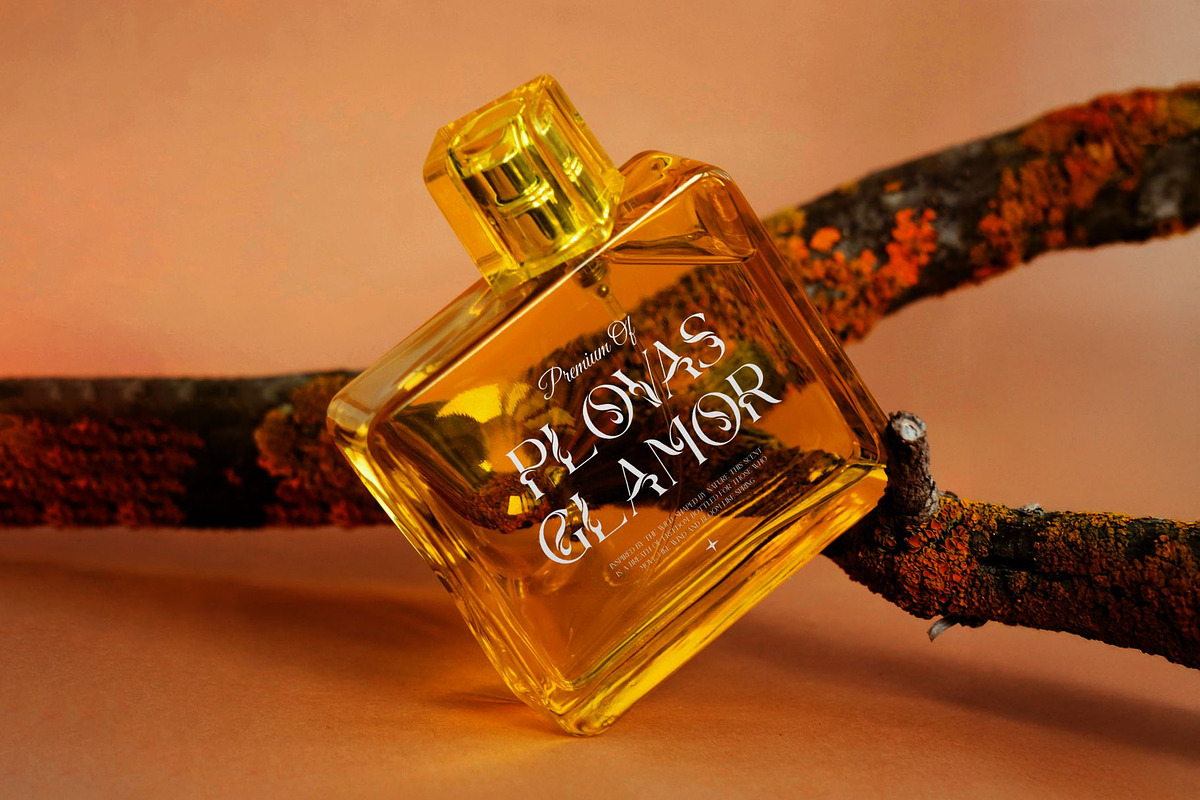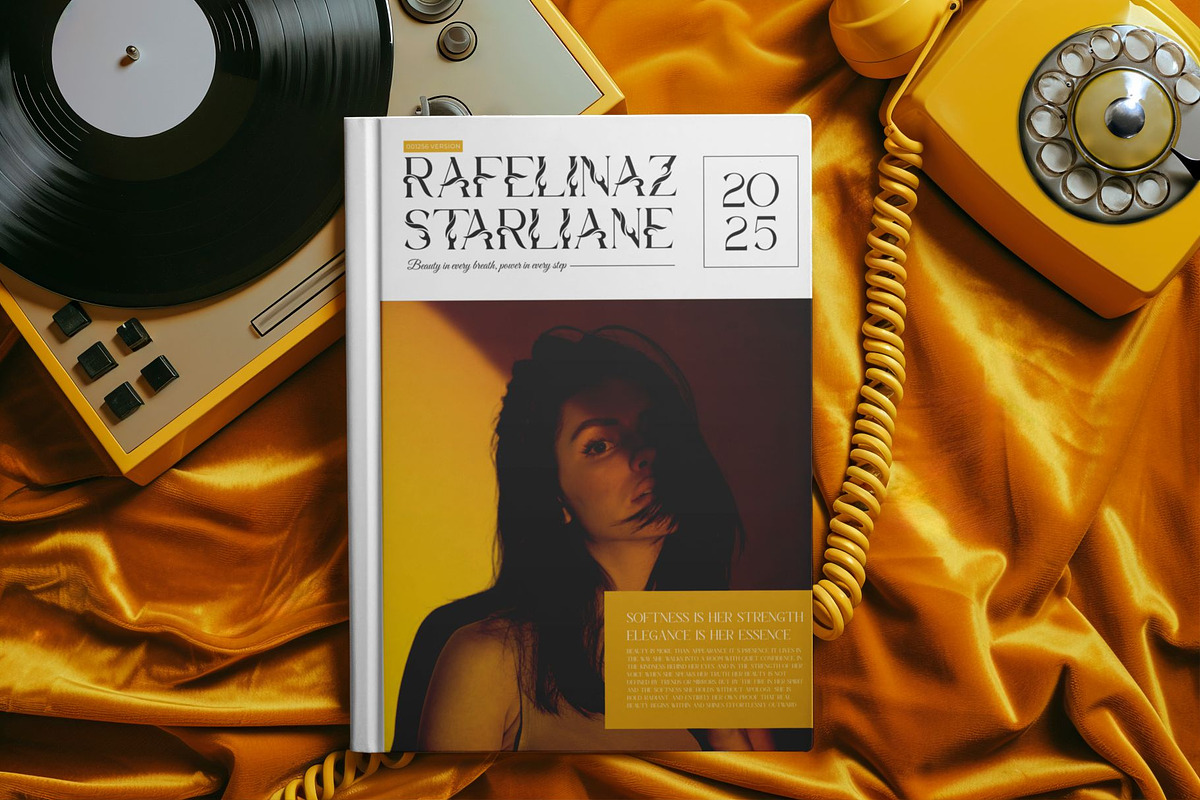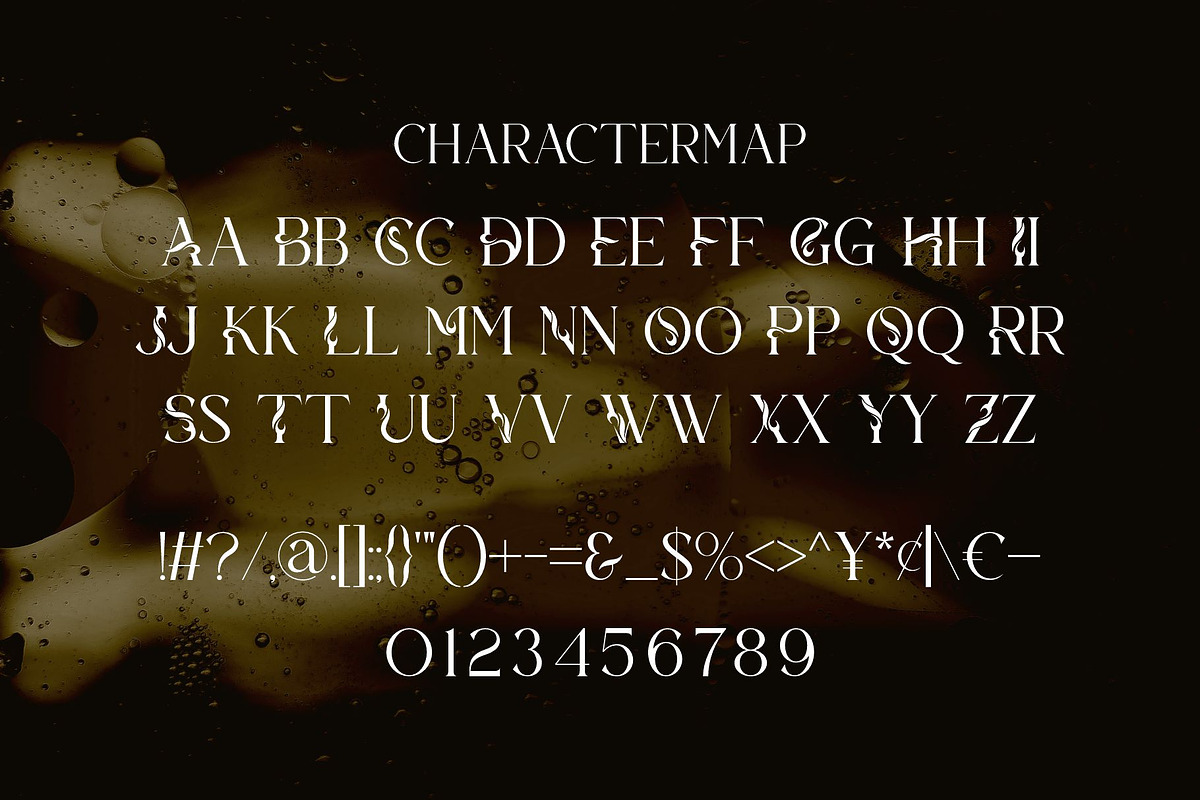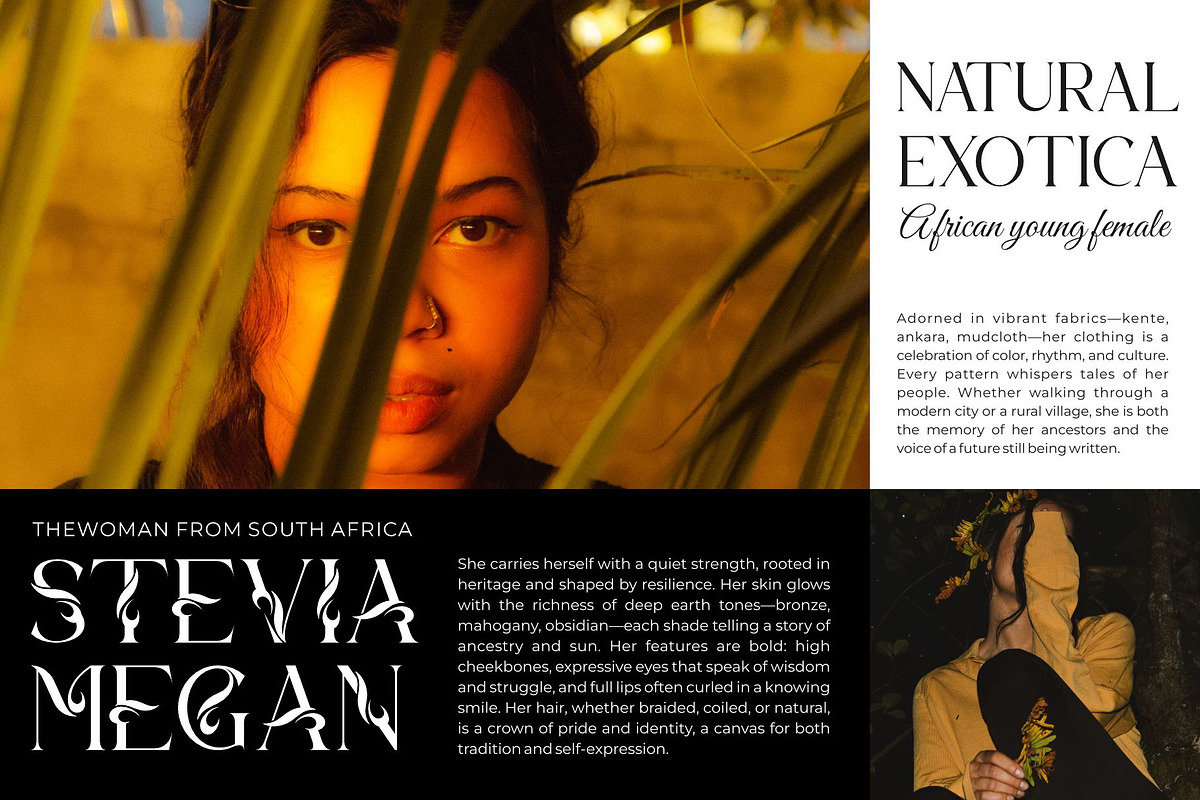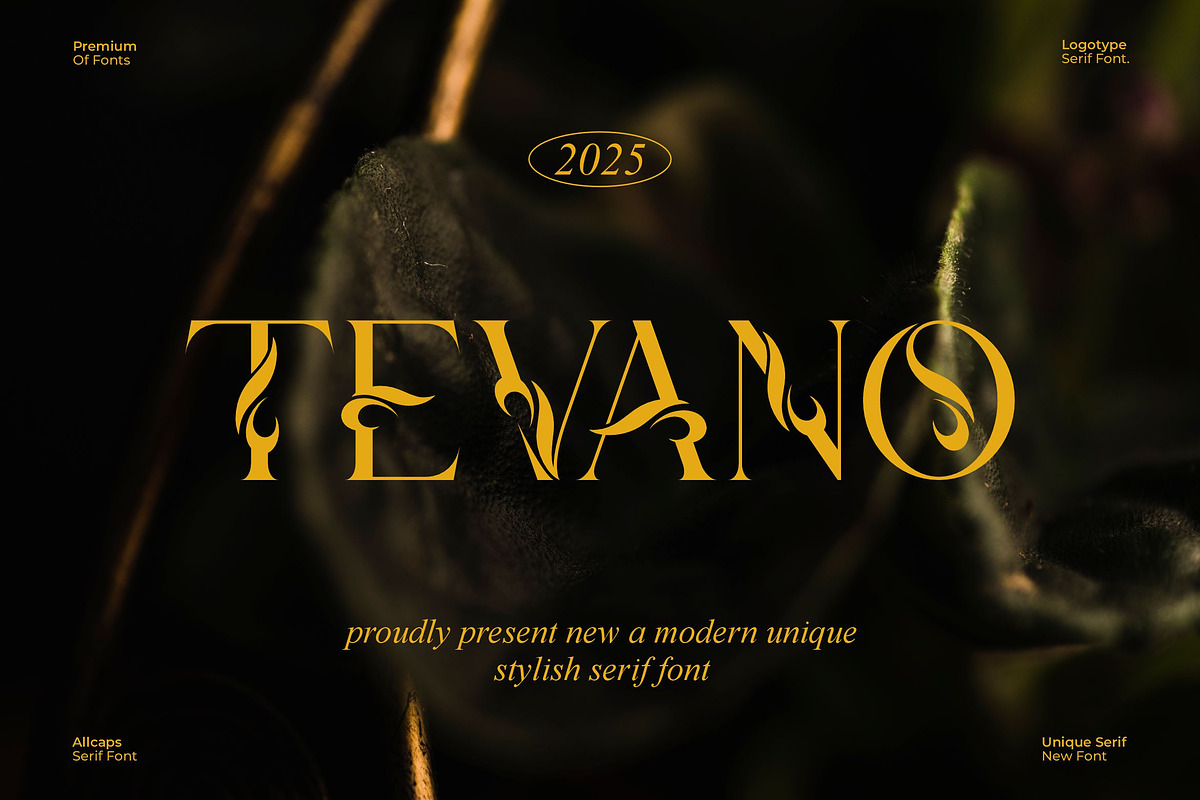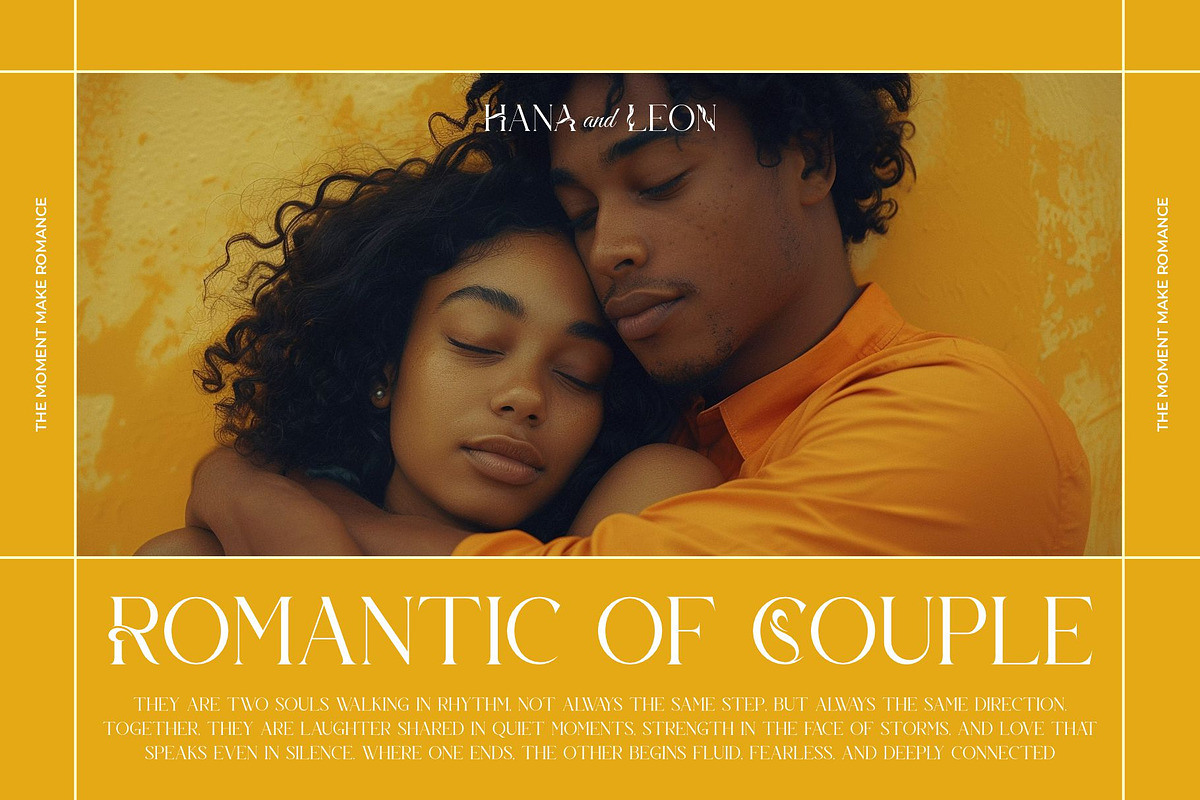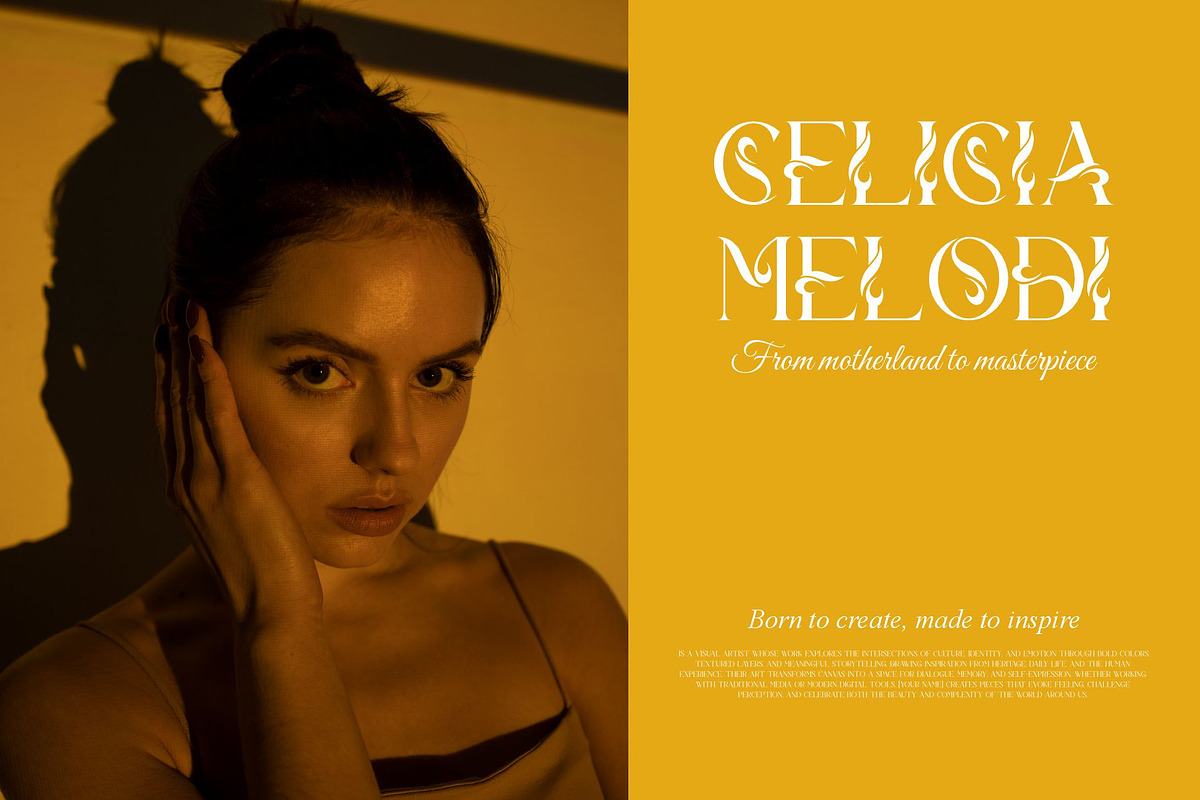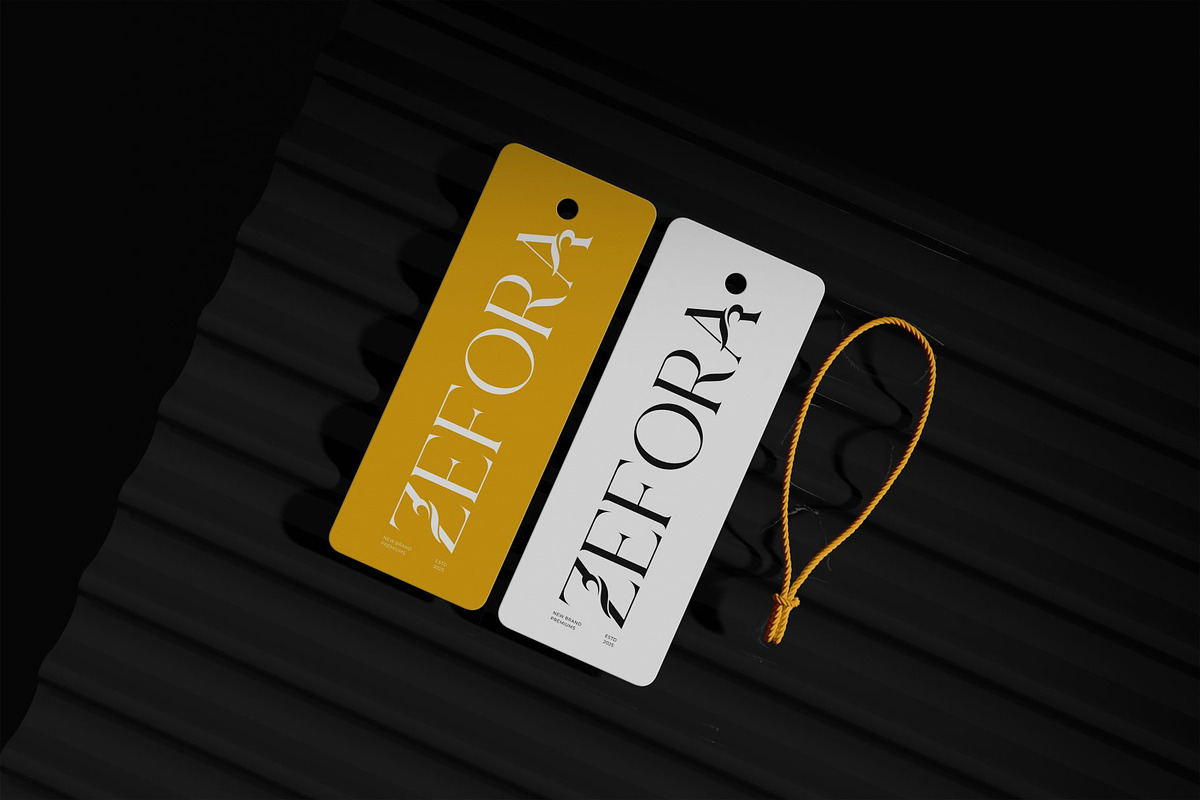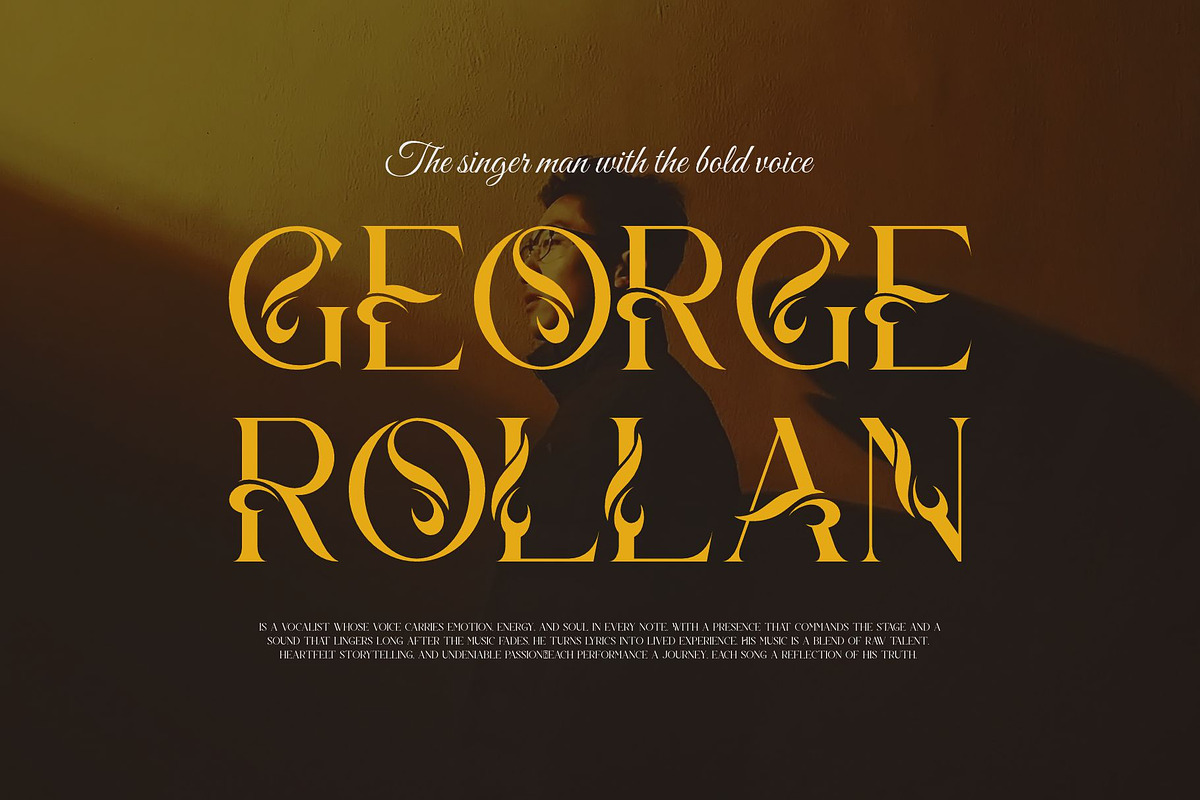
Tevano || Modern Unique Serif Font
Tevano Serif is a modern and unique font type for all branding and logo designs. This modern and unique Serif font has a beautiful character. This font is suitable for invitation card designs, cool logos, movie titles, movie names, business cards, book titles, brand names, and various other designs. Tevano Serif is a smooth serif font that exudes sophistication and the moment. Its unique stylish make this font a perfect partner for any project.